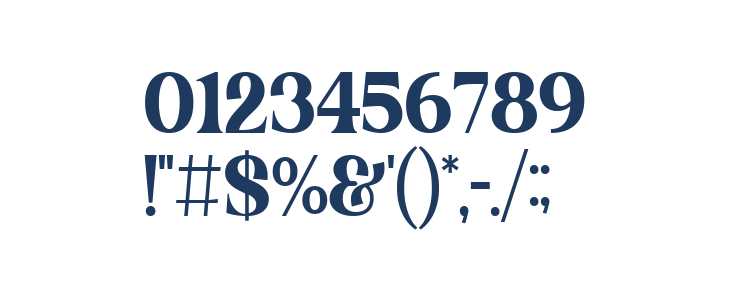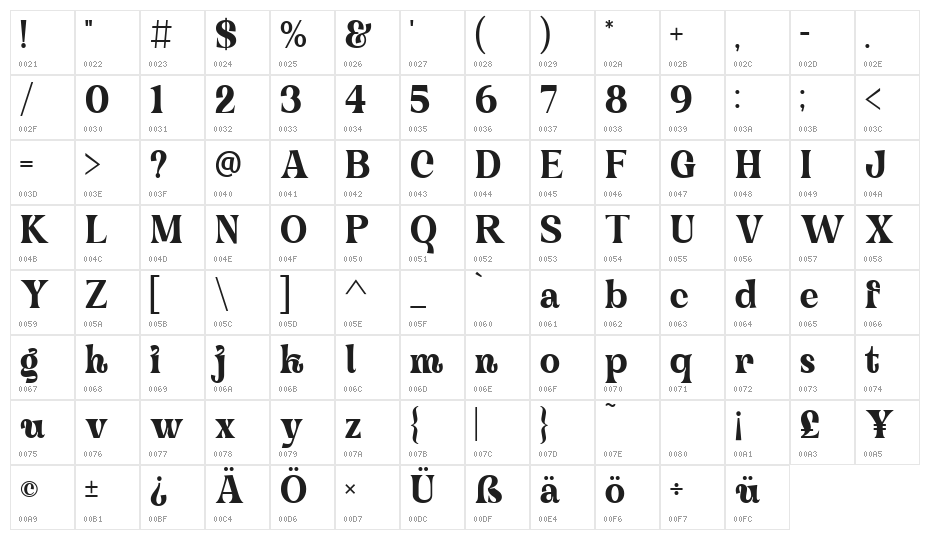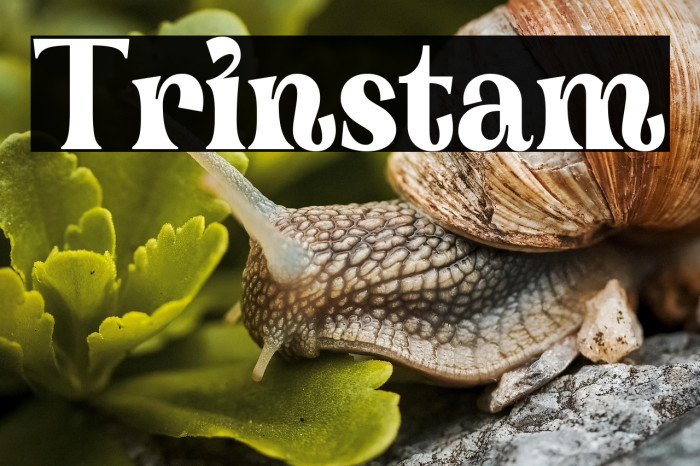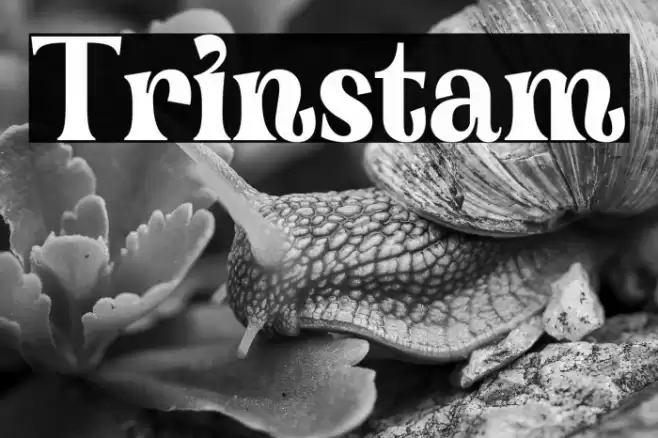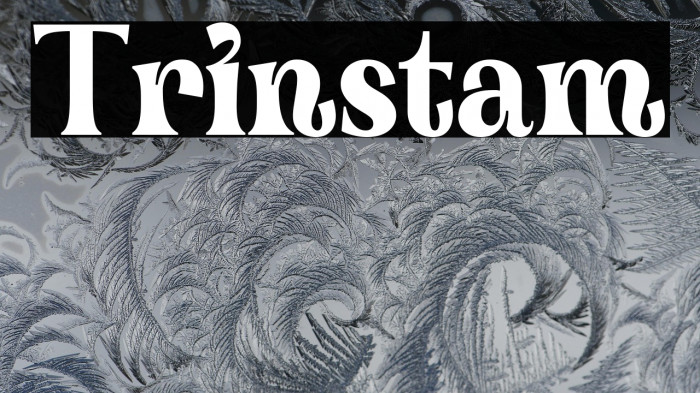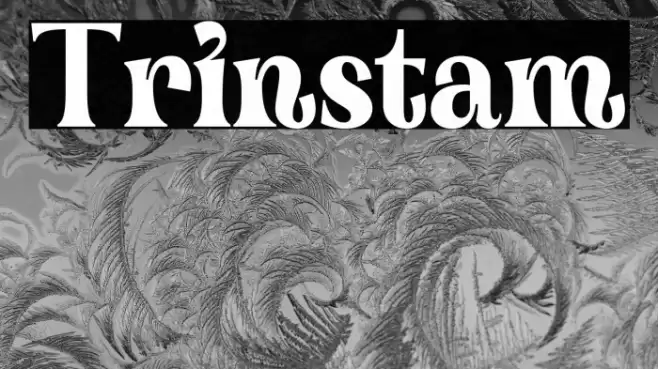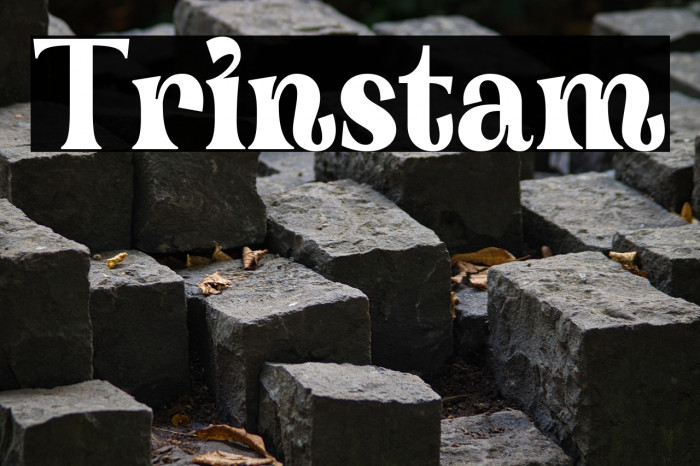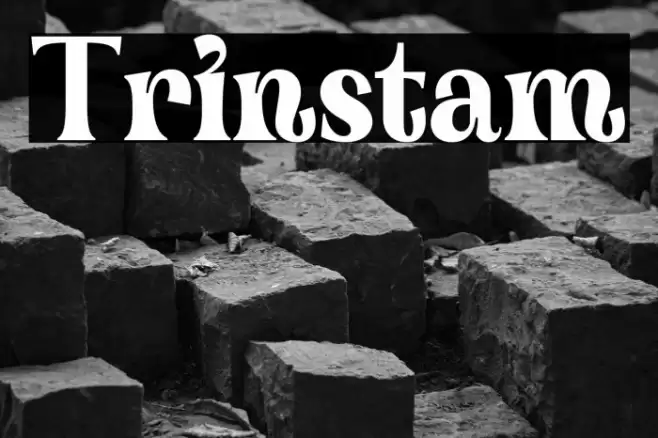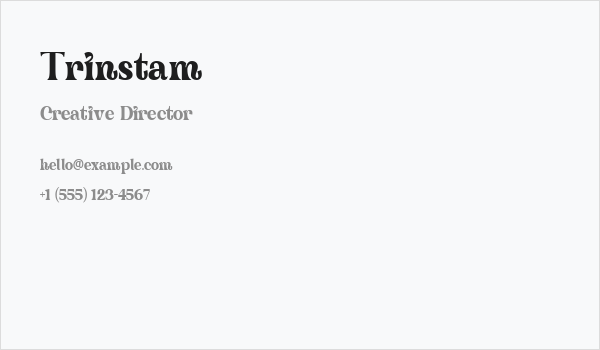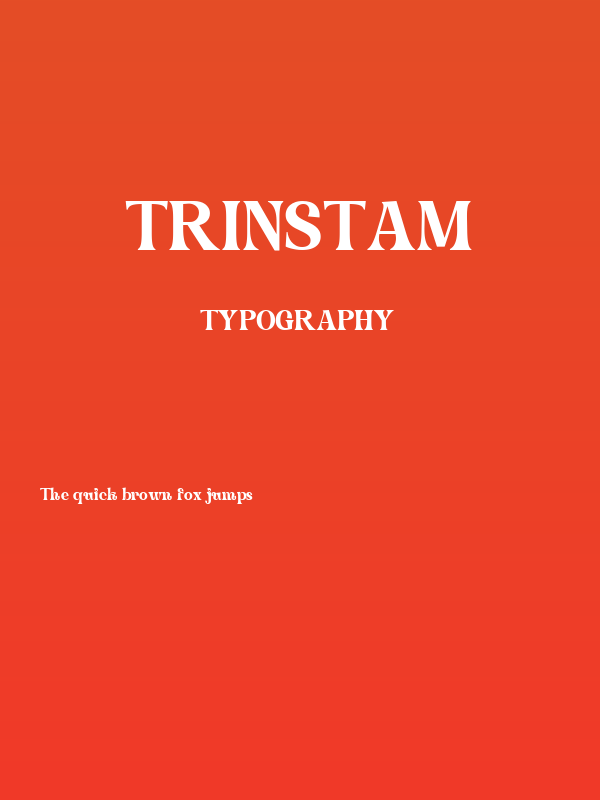
Trinstam Font
Trinstam Description
This font features a bold and dynamic style with strong, thick strokes and high contrast between thick and thin lines. The uppercase letters are characterized by their broad, commanding presence, while the lowercase letters maintain a playful yet robust appearance. The numbers are equally bold, ensuring readability and impact. Special characters are designed with the same boldness, making them stand out. The overall design is reminiscent of vintage typography with a modern twist, suitable for making a strong visual statement.
| Overall Style | Vintage, Modern |
| Proposed Projects | Ideal for branding, poster design, headlines, and any project requiring a strong visual impact. |